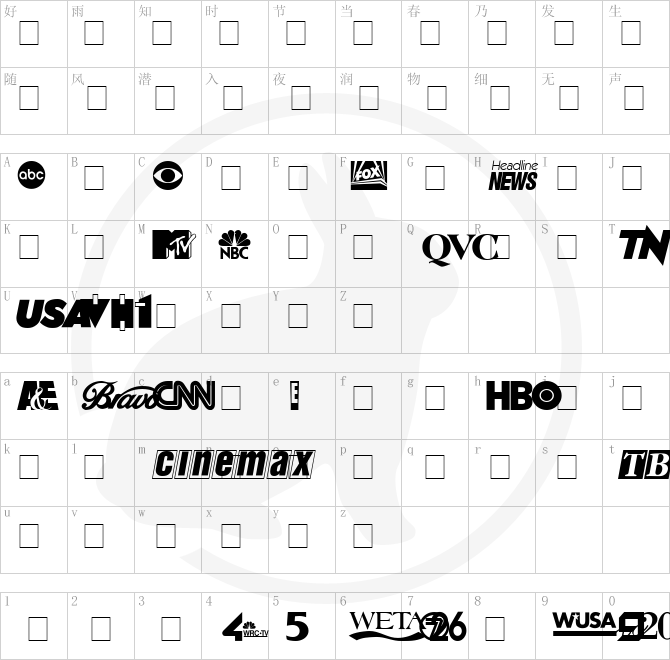
- Font Name:CableDingbats
CableDingbats.ttf is a very beautiful artistic font, CableDingbats.ttf is widely used in the design and printing of various books and pictures,CableDingbats.ttf has a strong visual impact,CableDingbats.ttf is a commonly used font in newspapers, magazines and books, and is used in posters, e-commerce Poster design, store design, logo design, font design and other fields.CableDingbats.